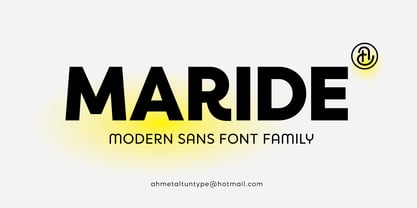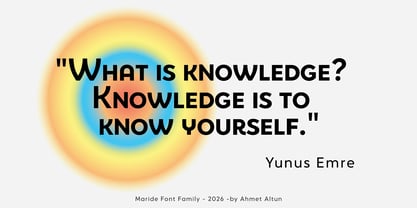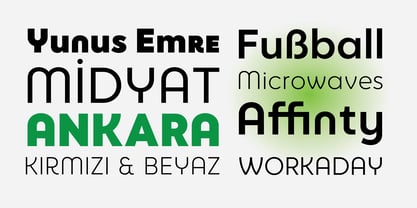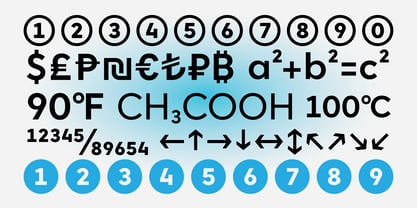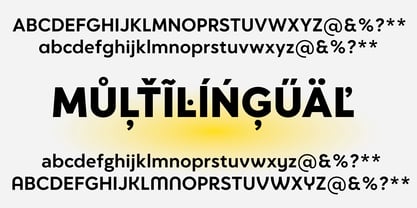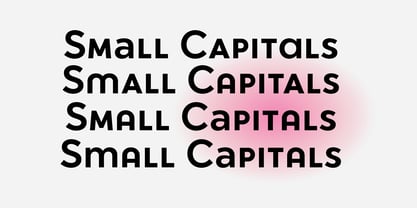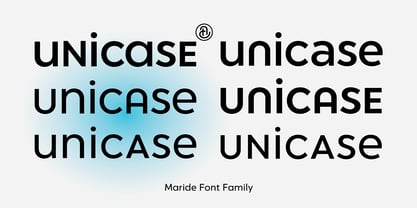
Maride
by Ahmet Altun
The Maride Font Family was designed by Ahmet Altun and published by Ahmet Altun. Maride contains 10 styles and family package options. More about this family
Maride is a modern, sans-serif, and geometric font family. With small caps at the height of lowercase letters, as well as stylistic alternatives for some uppercase and lowercase letters, it allows for the creation of a wide variety of text. The Maride font family consists of 10 weights and does not include italic styles. With its scientific and mathematical OpenType features, it can be an excellent font choice for all kinds of graphic design projects.